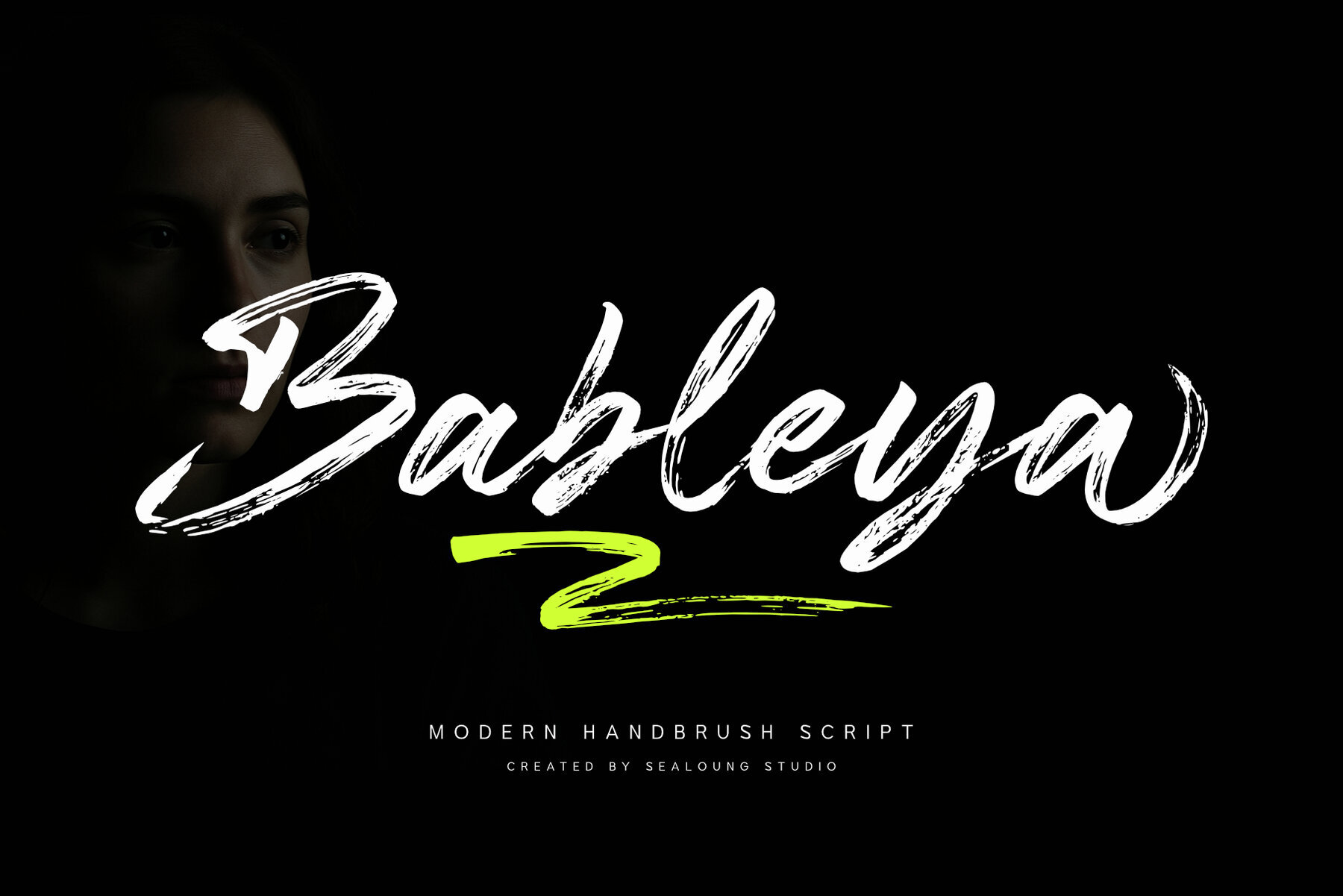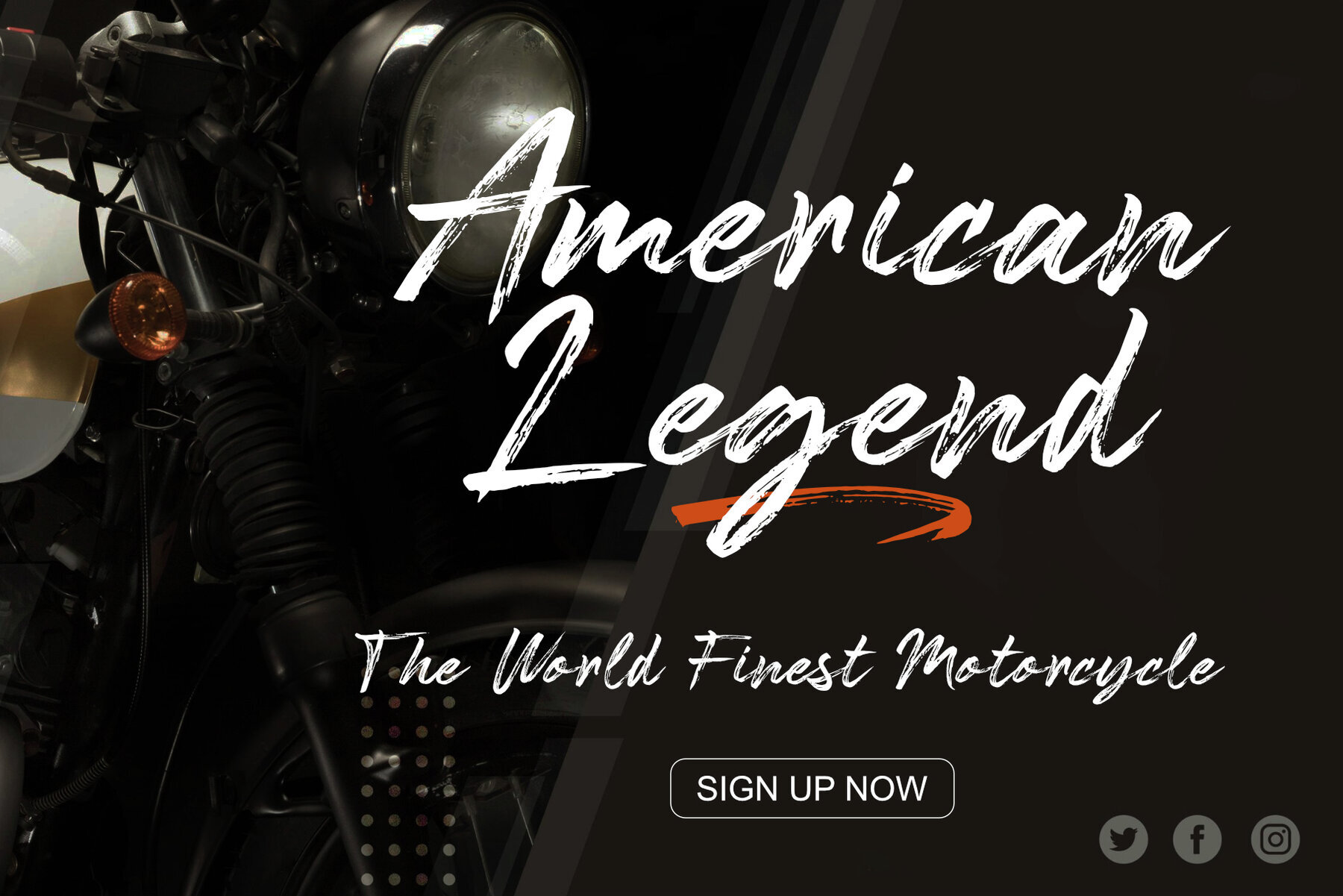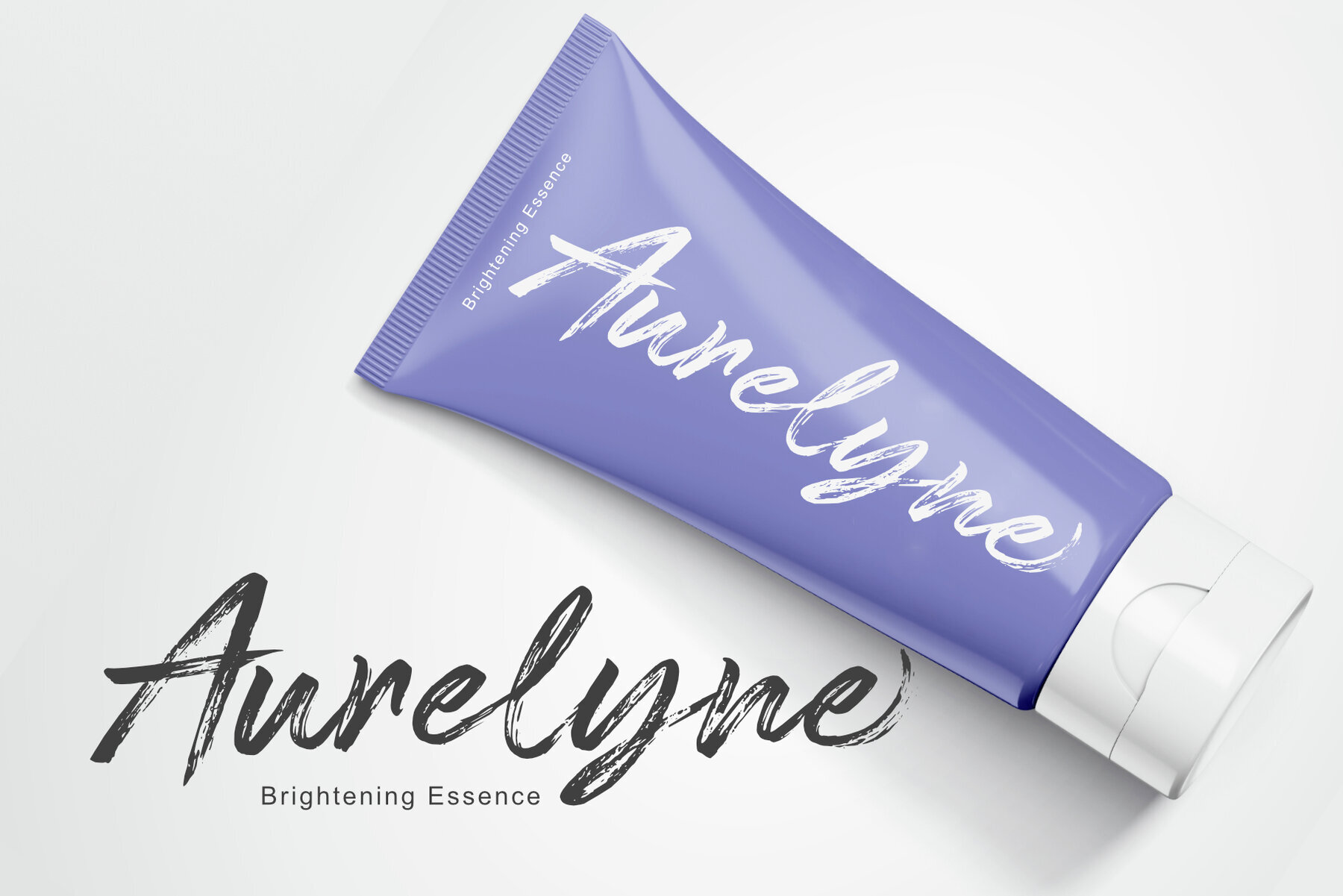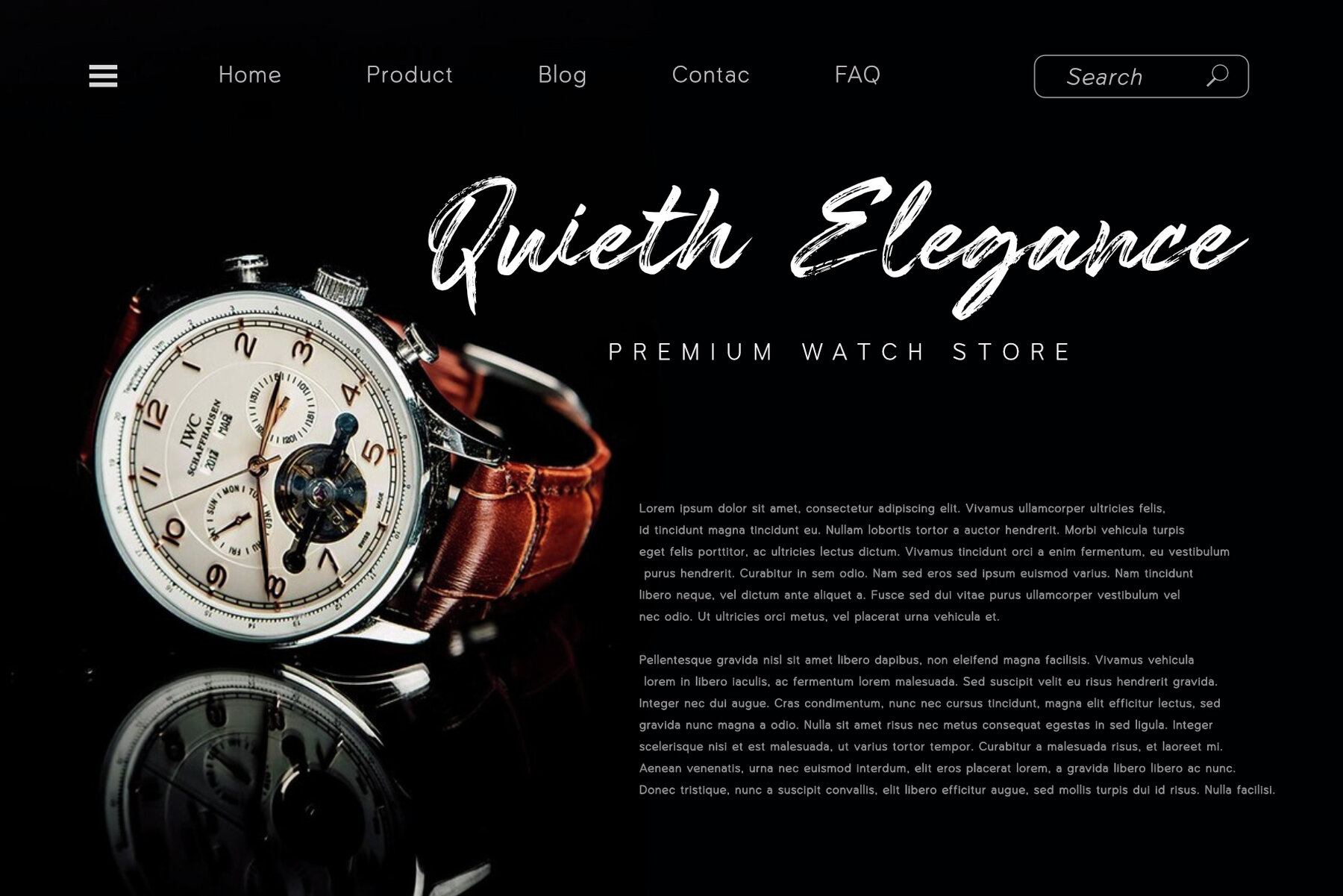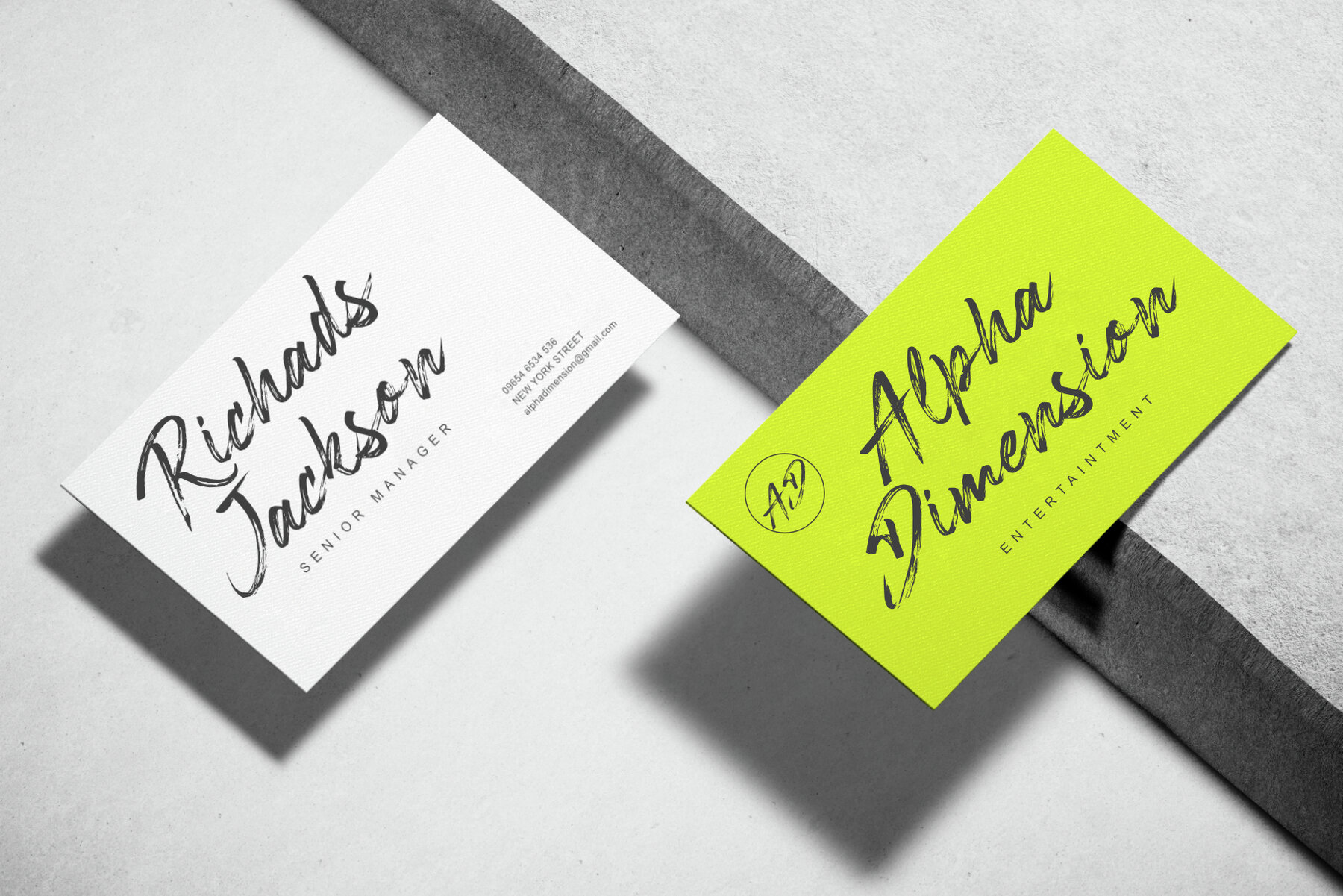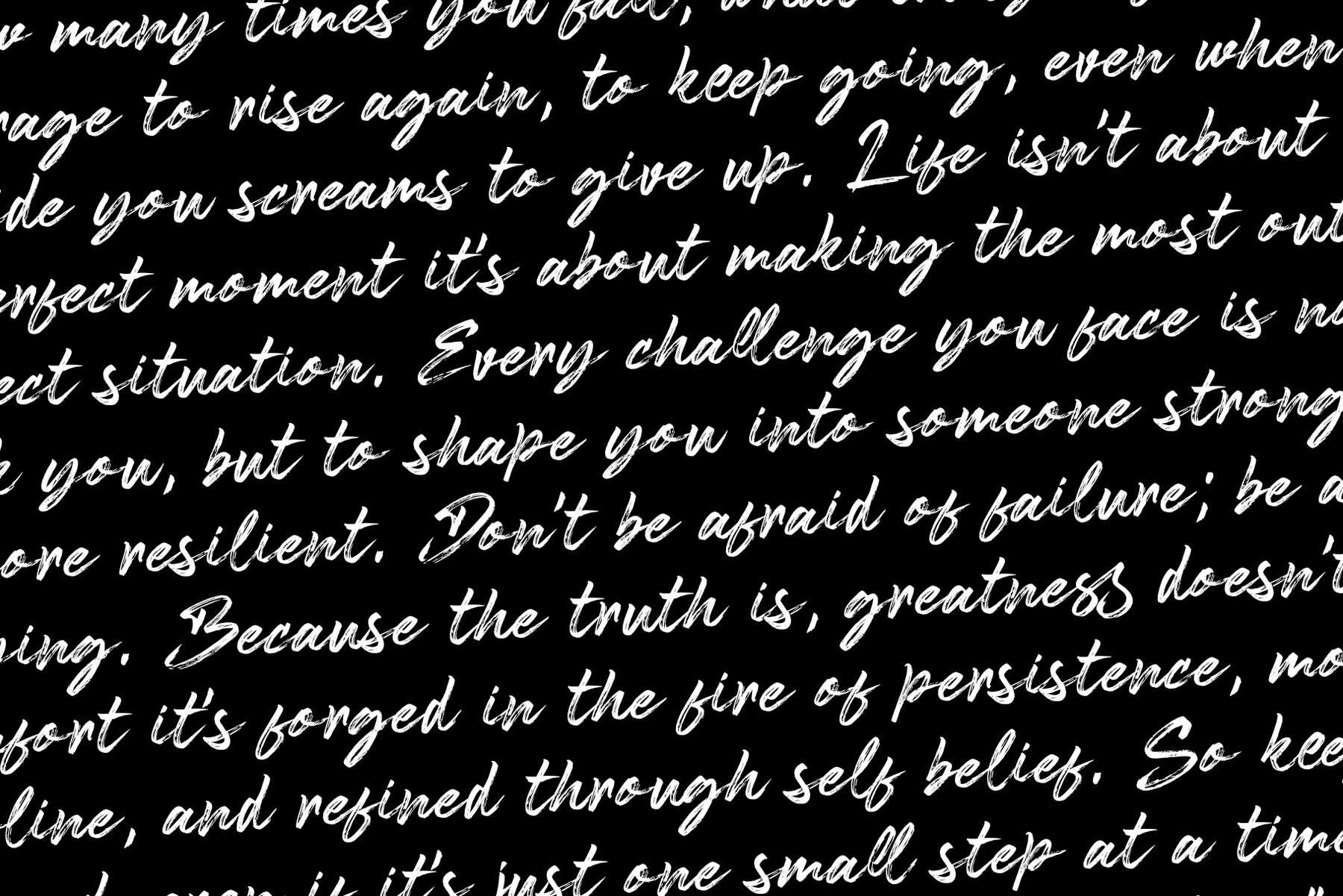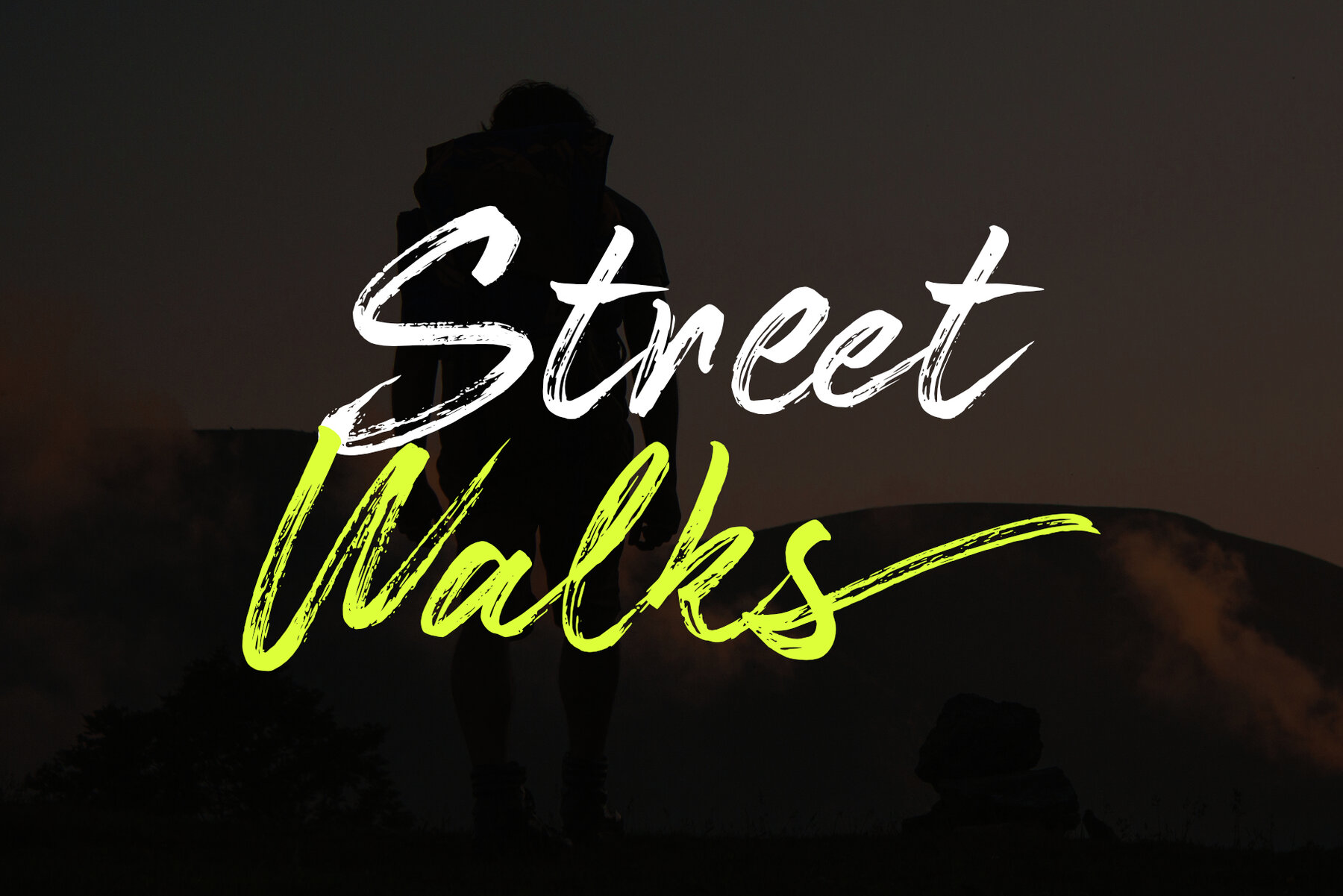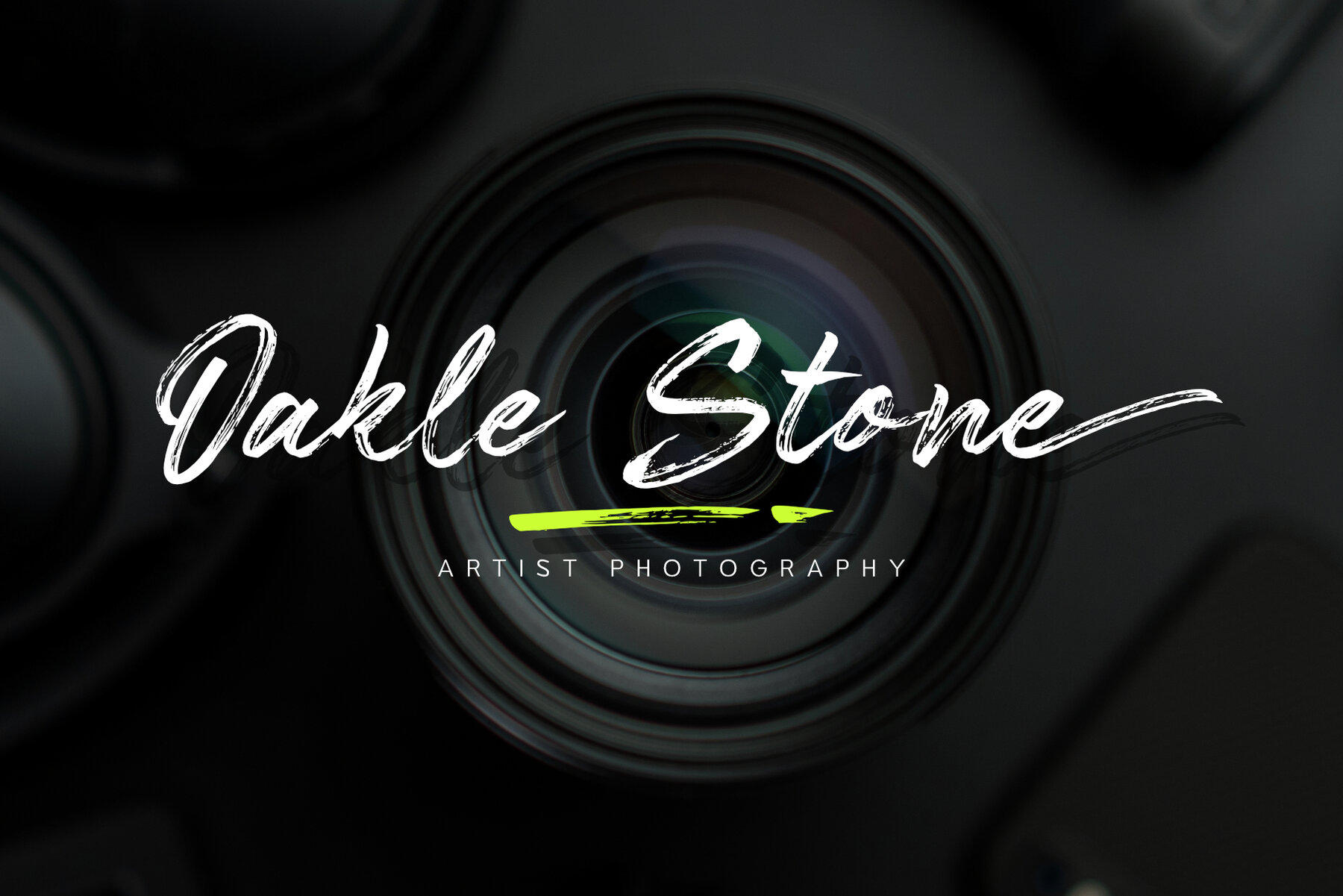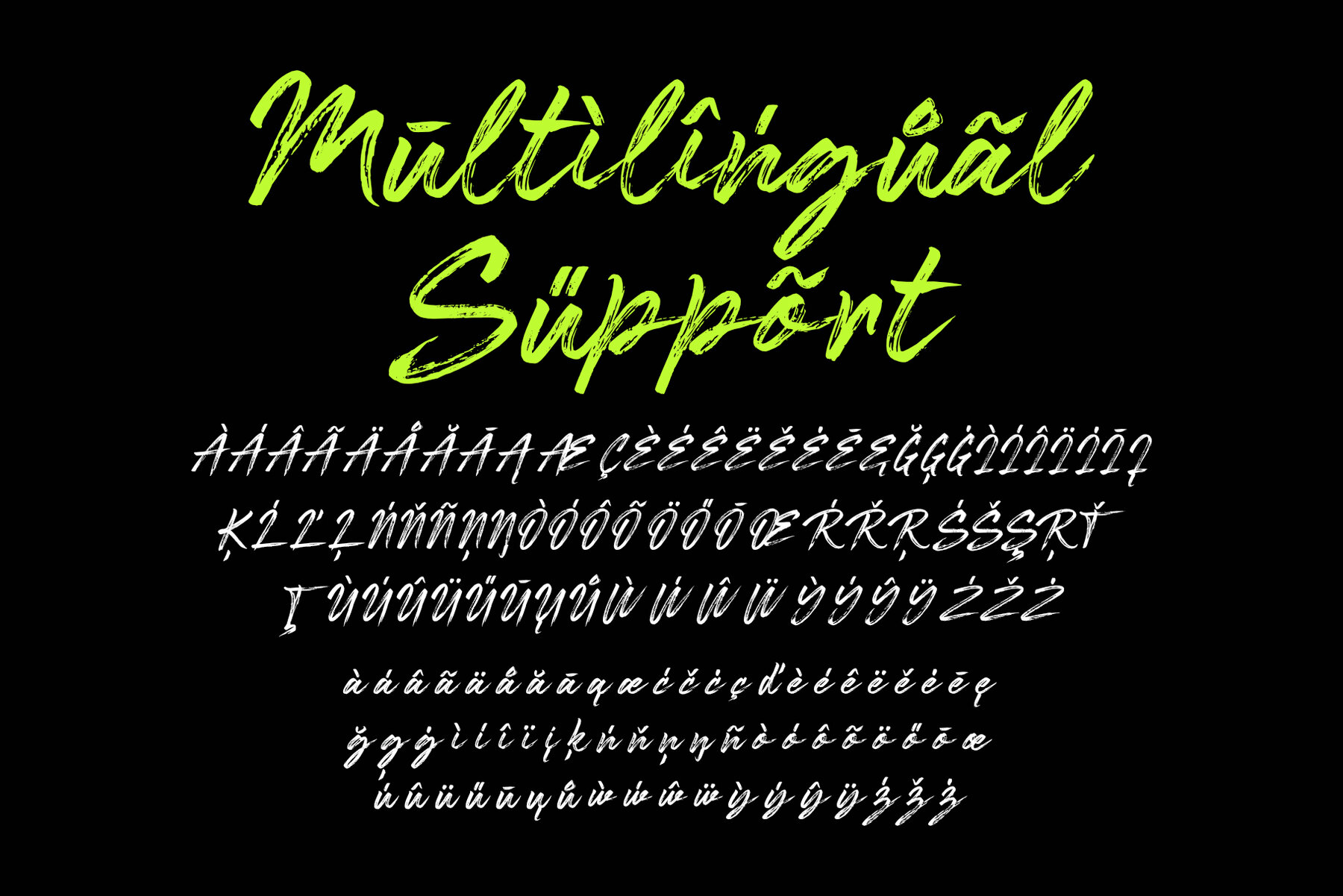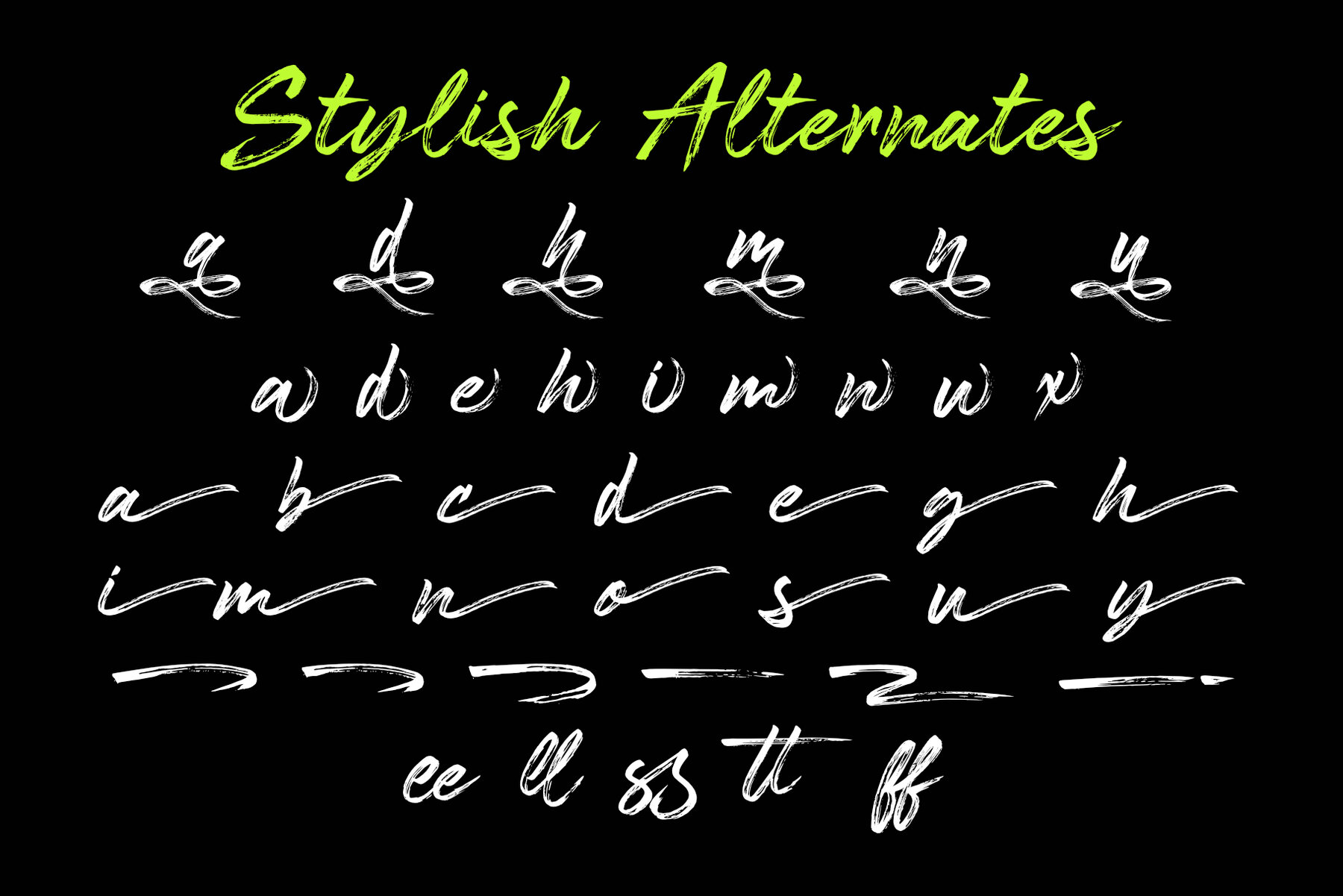
Bableya Font
Bableya Regular
Bableya is a stylish brush font that infuses your designs with a friendly, engaging aesthetic. Its unique brush strokes convey charm and sophistication, appealing to those seeking a contemporary handwritten touch. Versatile across various applications, Bableya enhances branding, logos, and wedding invitations. It also suits social media content, advertising, product packaging, and labels. Whether for photography watermarks or personalized stationery, this font embodies a modern, handcrafted essence.Bableya: A Modern Brush Font with Charm